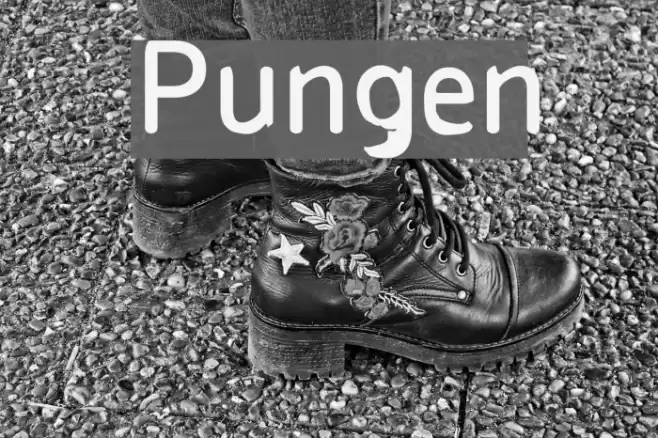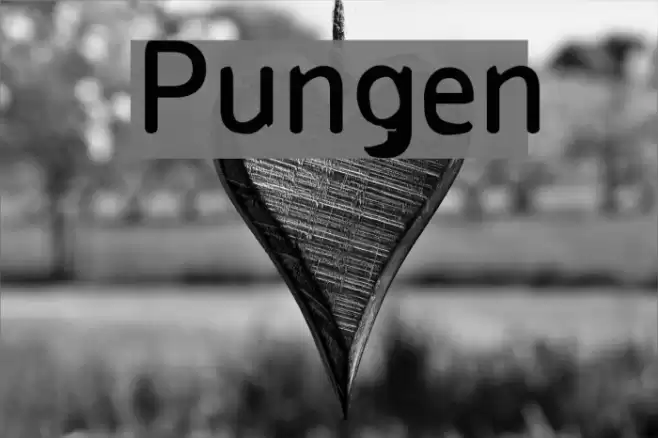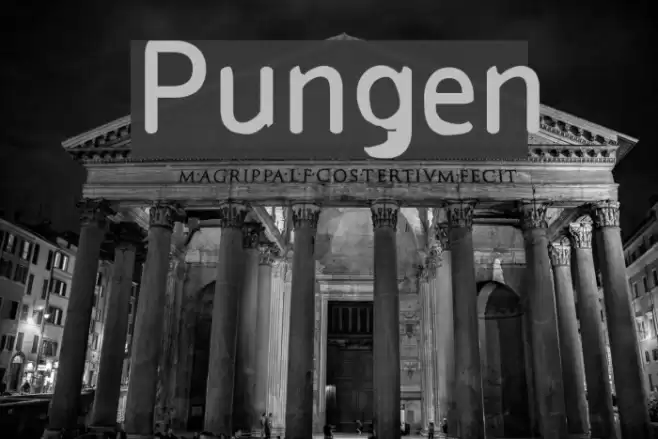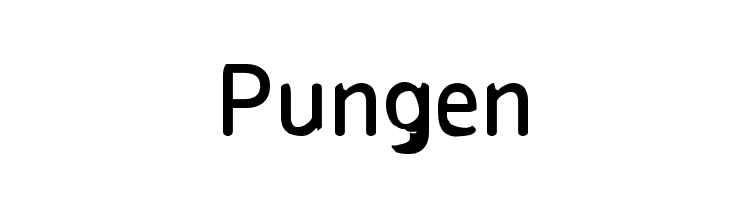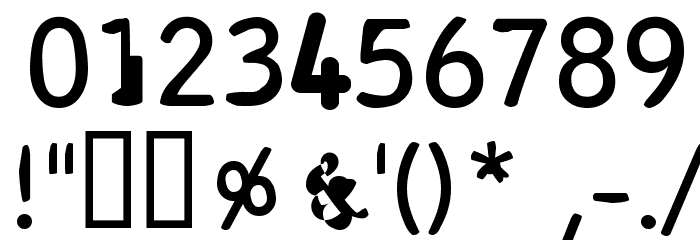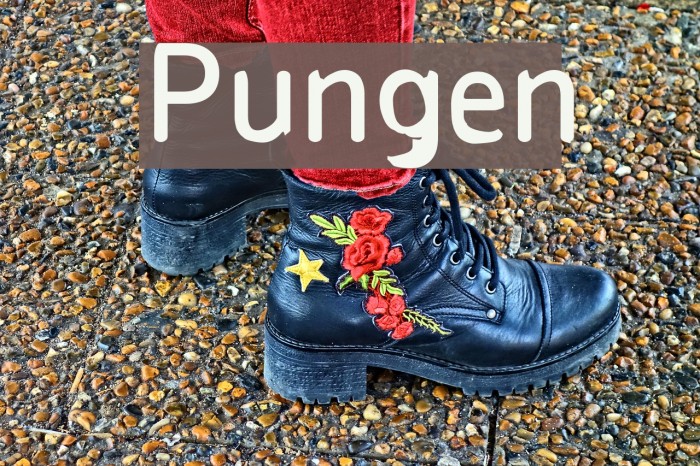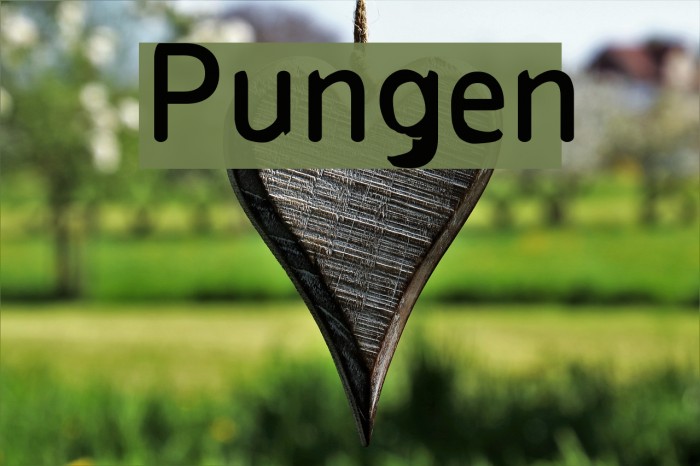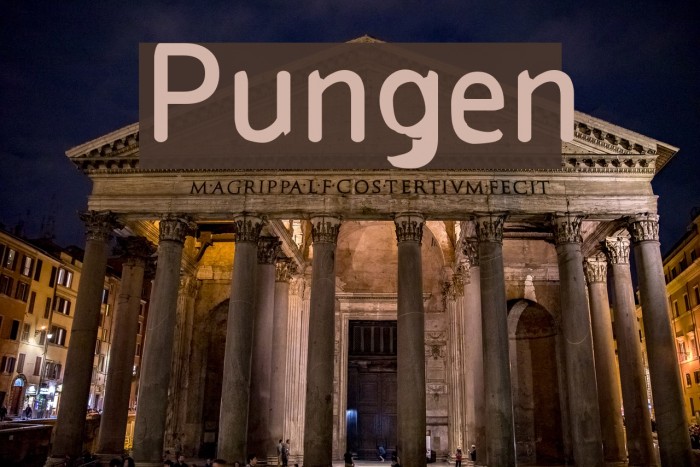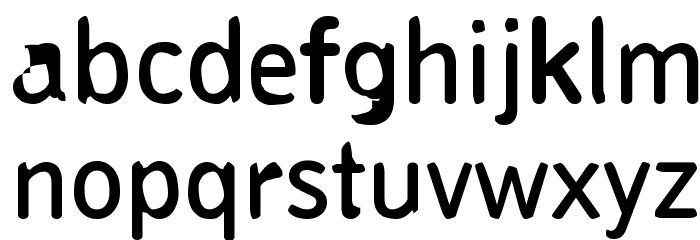
Pungen
This font features a clean and modern sans-serif design with a slightly rounded appearance, giving it a friendly and approachable feel. The characters are well-proportioned, with consistent stroke widths that provide a balanced look. The uppercase letters are bold and assertive, while the lowercase letters maintain a smooth and cohesive flow. The numerals are clear and easy to read, making them suitable for various applications. Special characters are included, offering versatility for different design needs. Overall, this font is versatile and can be used in both digital and print media.
A modern, rounded sans-serif font with a friendly and approachable style.
- Proposed Projects: Ideal for branding, web design, advertising, and editorial projects.